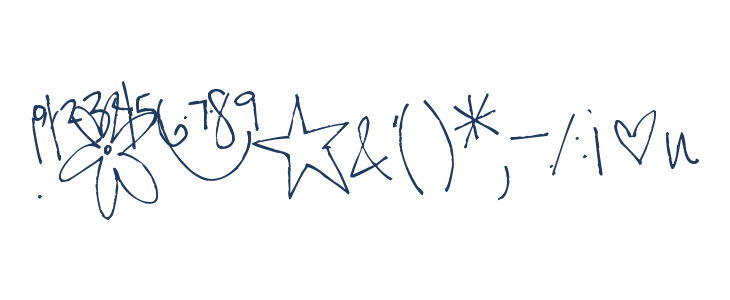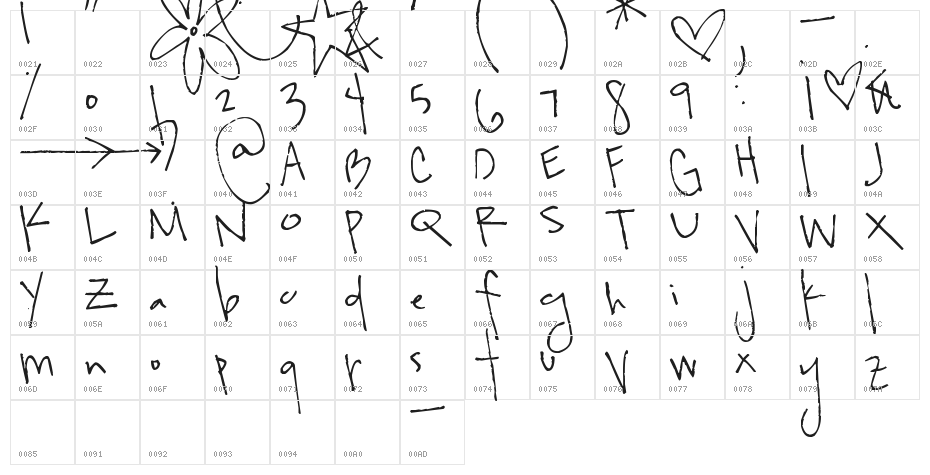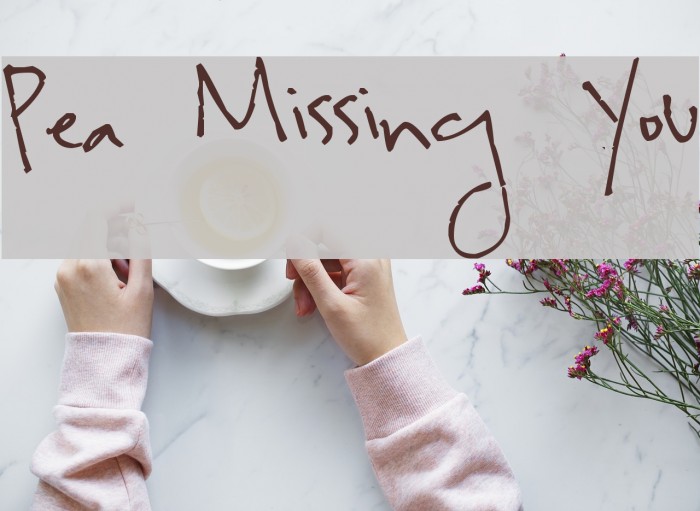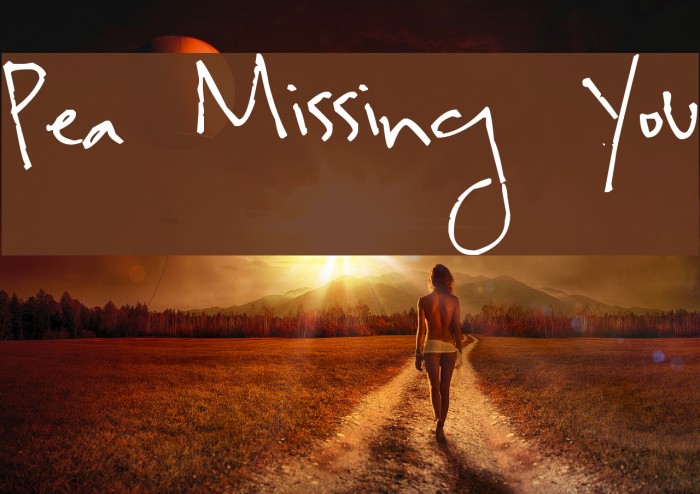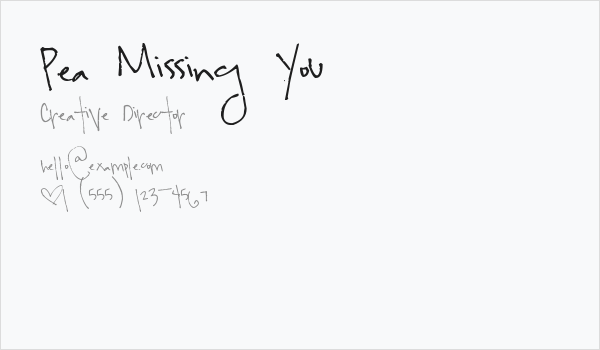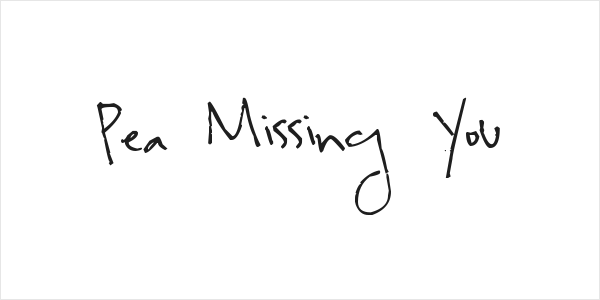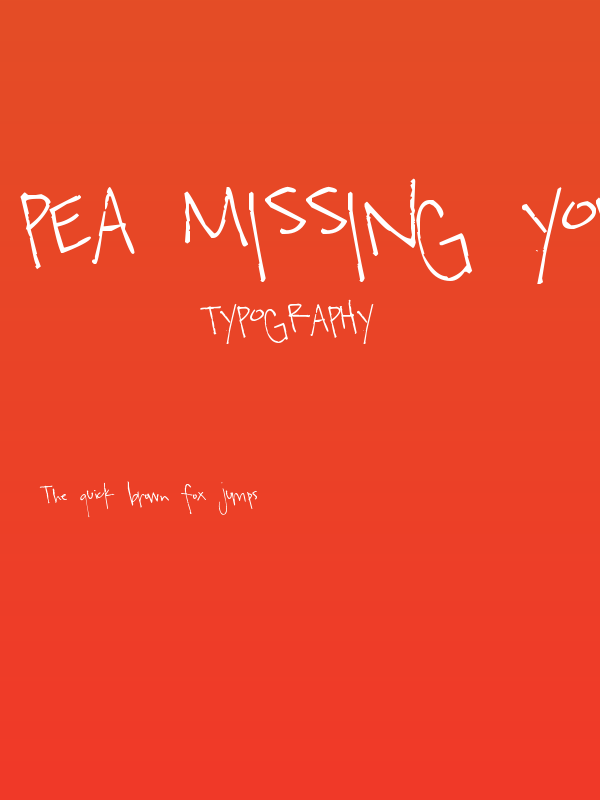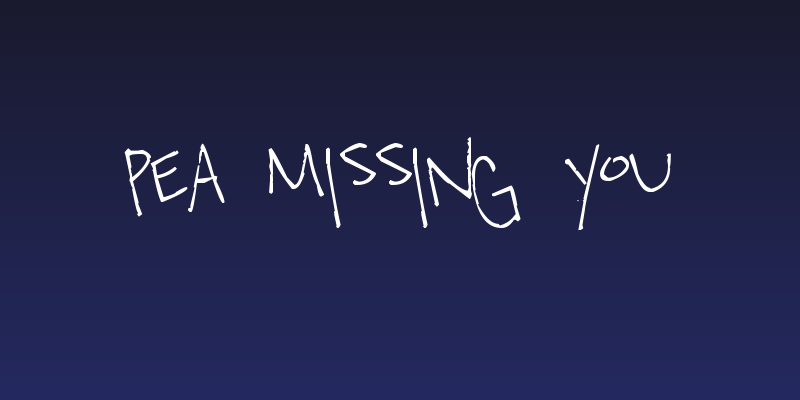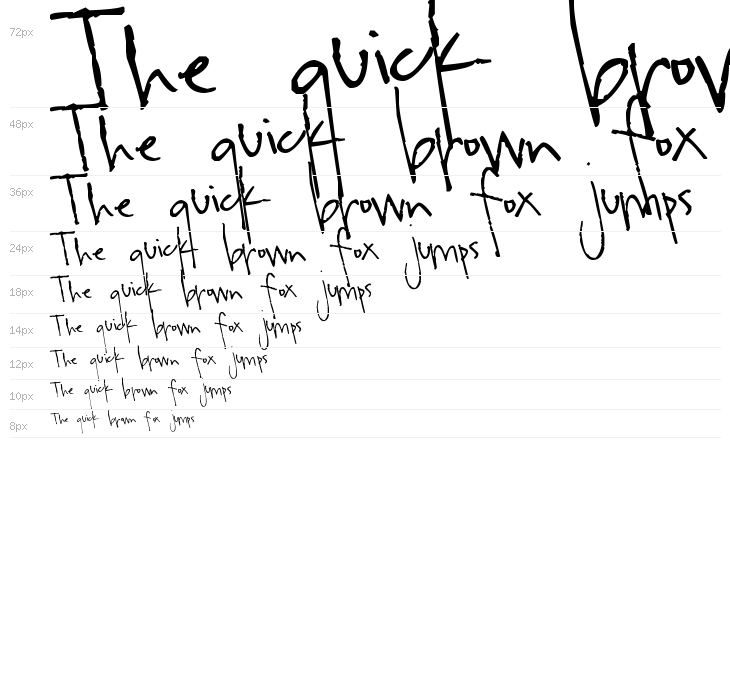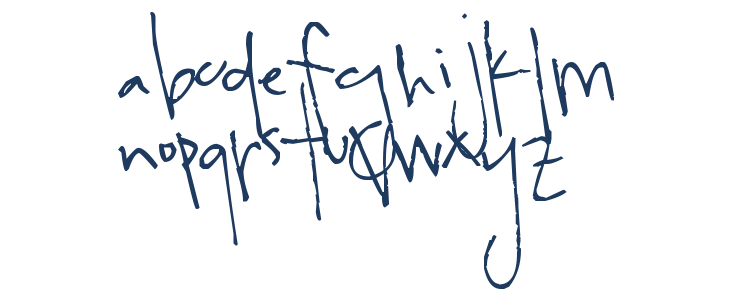
Pea Missing You Font
Pea Missing You Description
This font features a playful and whimsical handwritten style, characterized by its irregular and casual strokes. The letters have a spontaneous and informal appearance, with varying heights and angles that give it a lively and dynamic feel. The uppercase and lowercase letters maintain a consistent freeform style, while the numerals and special characters complement the overall aesthetic with their quirky and artistic flair. This font exudes a sense of creativity and personal touch, making it ideal for projects that require a friendly and approachable vibe.
| Overall Style | Casual, Whimsical |
| Use Case | Greeting cards, Personal notes, Creative branding |
| Proposed Projects | Ideal for personal notes, greeting cards, children's book illustrations, and creative branding projects. |